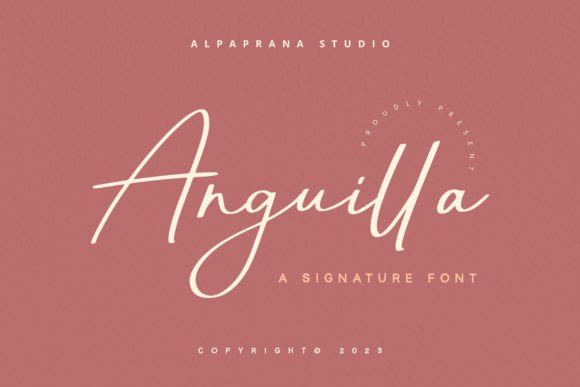
Anguilla Font: A Signature Font with Natural and Modern Feels
Are you looking for a font that can elevate your design projects to the next level? Look no further than the Anguilla Font. This signature font is designed to provide a natural and modern feel, making it perfect for a wide range of applications, from branding and logo design to lettering, packaging, and more.
Key Features of Anguilla Font
- Uppercase & Lowercase: The Anguilla Font includes both uppercase and lowercase letters, allowing you to create professional-looking text with ease.
- Numerals: The font includes a range of numerals, making it perfect for use in designs that require numbers, such as posters, magazines, and packaging.
- Punctuations (OpenType Standard): The Anguilla Font includes a range of punctuations, including OpenType standard punctuations, making it easy to create professional-looking text.
- Accents (Multilingual Characters): The font includes a range of accents and multilingual characters, making it perfect for use in designs that require text in multiple languages.
- Ligatures and Alternative Style Stylistic Set: The Anguilla Font includes ligatures and alternative styles, allowing you to add a touch of elegance and sophistication to your designs.
Perfect for a Wide Range of Design Projects
The Anguilla Font is a versatile font that can be used in a wide range of design projects, including:
- Branding: The Anguilla Font is perfect for use in branding projects, providing a professional and modern feel that will help elevate your brand.
- Logo Design: The font is ideal for use in logo design, providing a unique and memorable look that will help your logo stand out.
- Lettering: The Anguilla Font is perfect for use in lettering projects, providing a natural and elegant feel that will add a touch of sophistication to your designs.
- Logotype: The font is ideal for use in logotype projects, providing a professional and modern feel that will help elevate your brand.
- Clothing: The Anguilla Font is perfect for use in clothing designs, providing a stylish and modern feel that will help your designs stand out.
- Poster: The font is ideal for use in poster designs, providing a clear and easy-to-read look that will help your message get across.
- Magazine: The Anguilla Font is perfect for use in magazine designs, providing a professional and modern feel that will help elevate your publication.
- Packaging: The font is ideal for use in packaging designs, providing a stylish and modern feel that will help your products stand out.
- Posters: The Anguilla Font is perfect for use in poster designs, providing a clear and easy-to-read look that will help your message get across.
- Shopping Bags: The font is ideal for use in shopping bag designs, providing a stylish and modern feel that will help your brand stand out.
- T-Shirts: The Anguilla Font is perfect for use in t-shirt designs, providing a stylish and modern feel that will help your designs stand out.
- Book Covers: The font is ideal for use in book cover designs, providing a professional and modern feel that will help your book stand out.
- Photography: The Anguilla Font is perfect for use in photography projects, providing a natural and elegant feel that will add a touch of sophistication to your designs.
- Special Events: The font is ideal for use in special event designs, providing a stylish and modern feel that will help your event stand out.
Benefits of Using Anguilla Font
The Anguilla Font offers a range of benefits, including:
- Unique and Memorable: The font provides a unique and memorable look that will help your designs stand out.
- Professional and Modern: The Anguilla Font provides a professional and modern feel that will help elevate your brand.
- Versatile: The font is versatile and can be used in a wide range of design projects.
In conclusion, the Anguilla Font is a signature font that provides a natural and modern feel, making it perfect for a wide range of design projects. With its range of features, including uppercase and lowercase letters, numerals, punctuations, and accents, this font is ideal for use in branding, logo design, lettering, packaging, and more. Its compatibility with both PC and Mac, and simple installation process, make it easy to use on a range of devices.